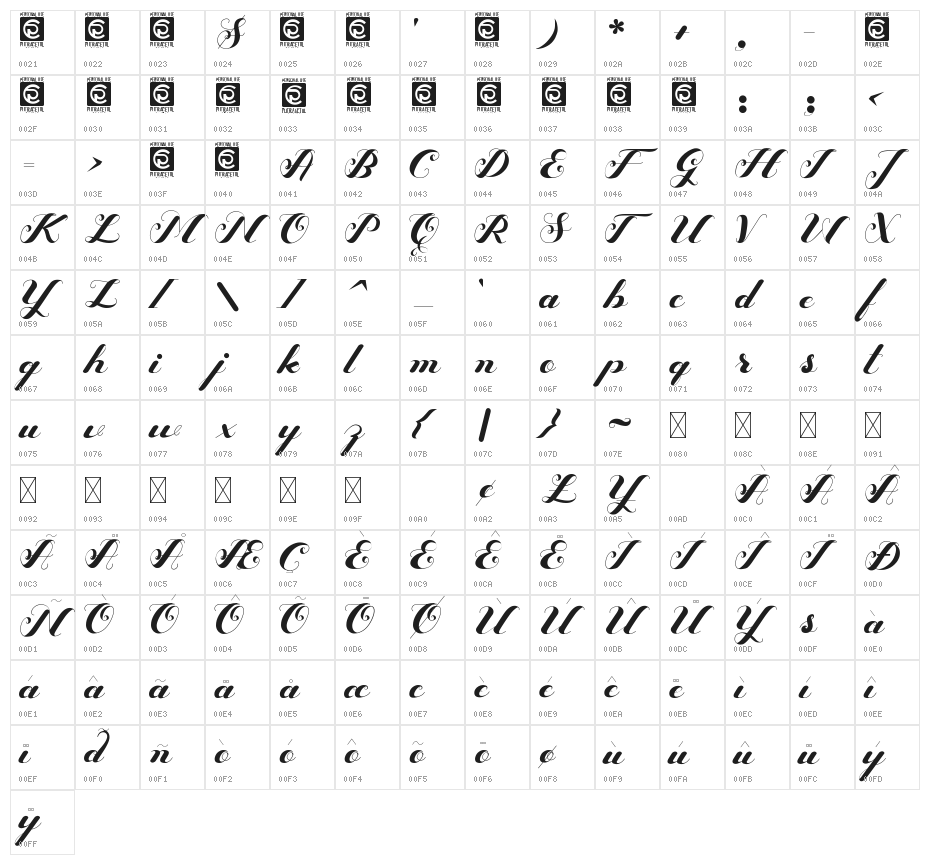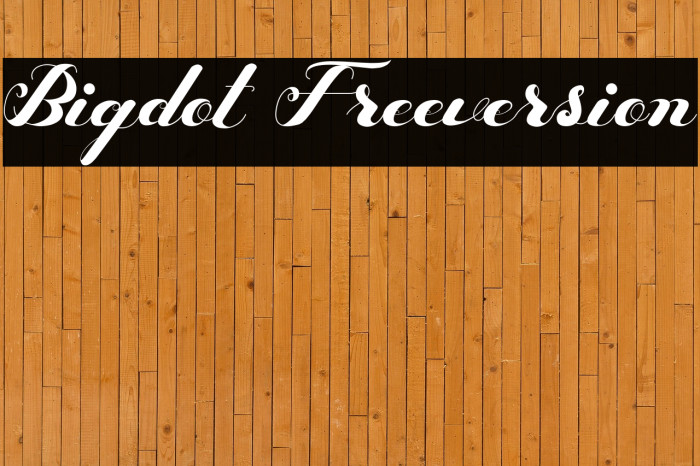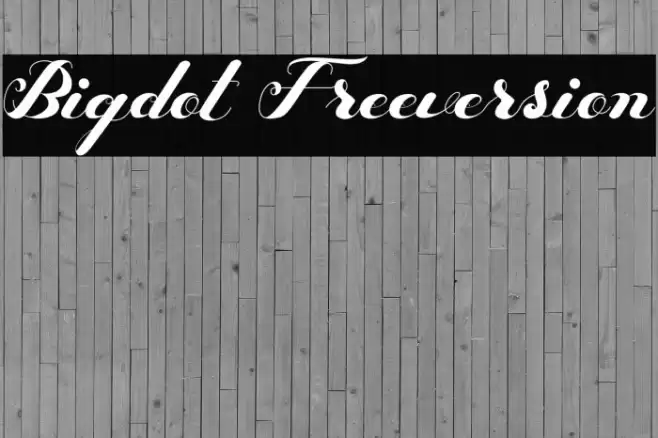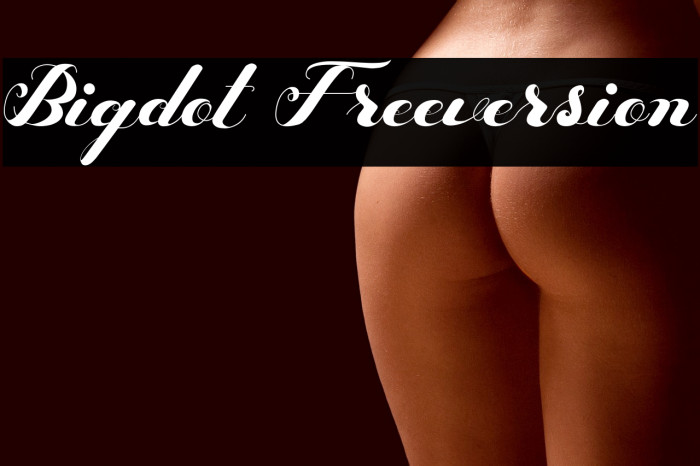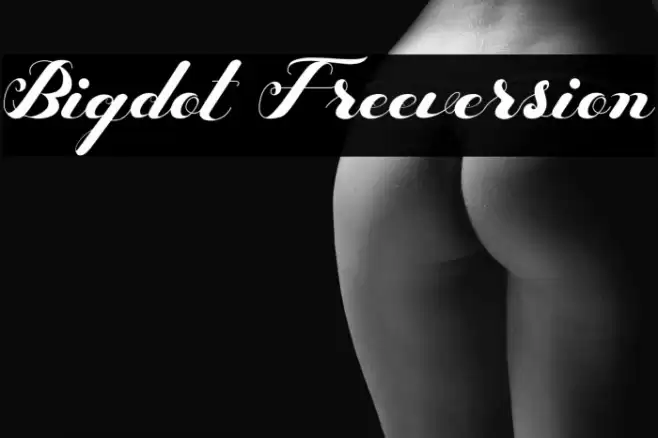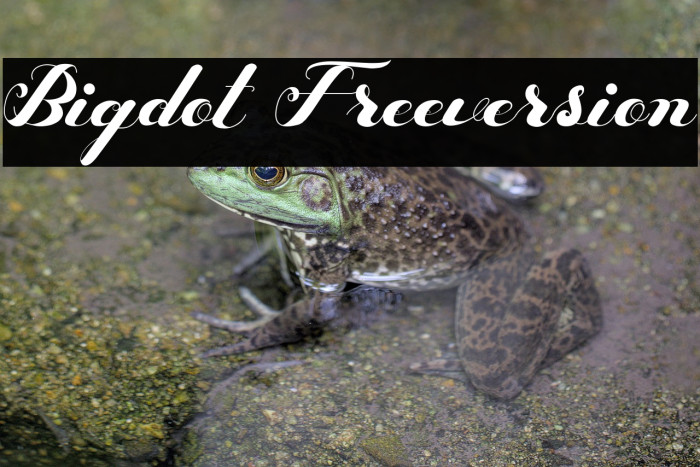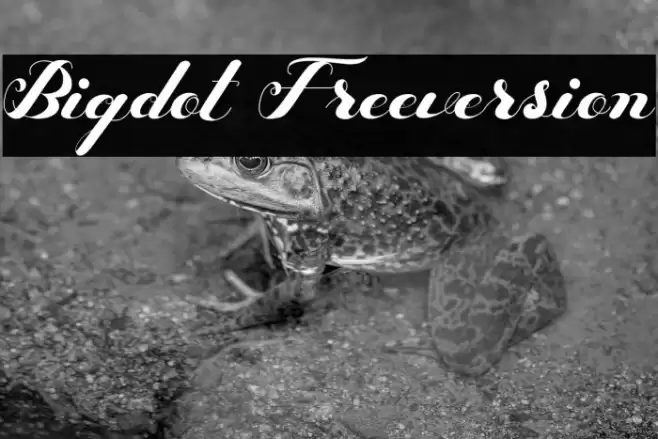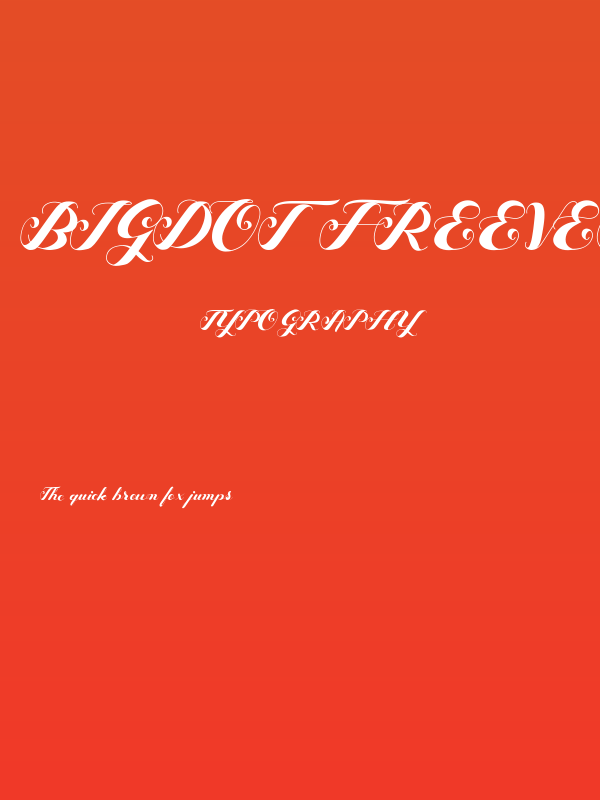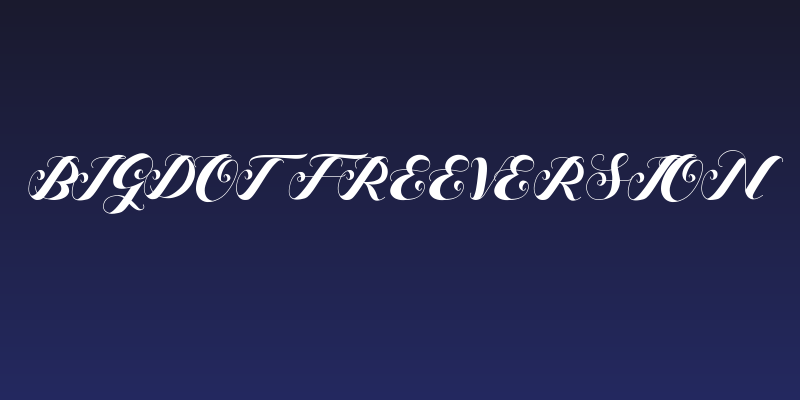
Bigdot Freeversion Font
Bigdot Freeversion Description
This elegant script font features a flowing, cursive style with intricate swashes and flourishes that add a touch of sophistication. The uppercase letters are adorned with decorative loops and curves, while the lowercase letters maintain a smooth, connected appearance. The font exhibits a high contrast between thick and thin strokes, enhancing its graceful and refined look. The characters are well-spaced, allowing for readability despite the ornate design. This font is ideal for projects that require a touch of elegance and class, such as wedding invitations, luxury branding, and high-end product packaging.